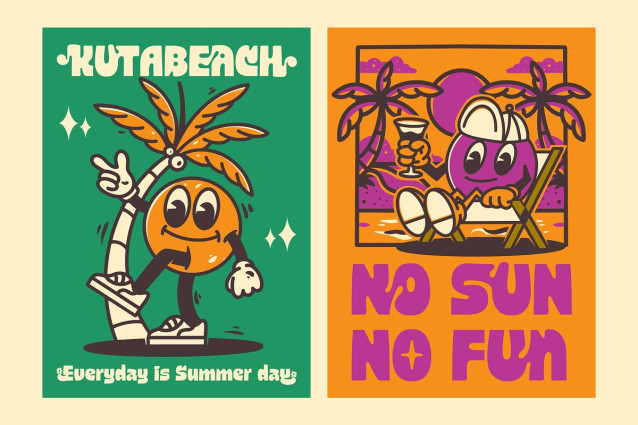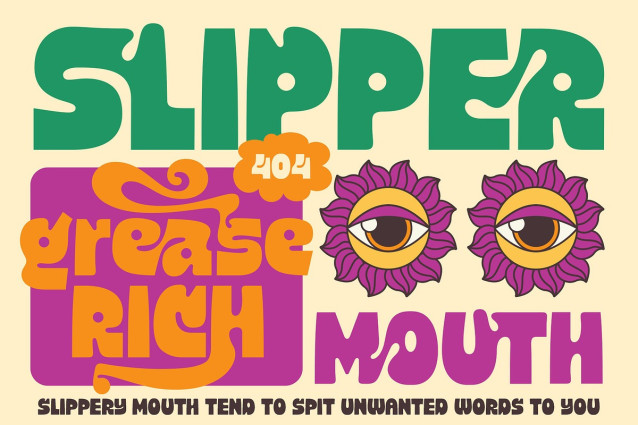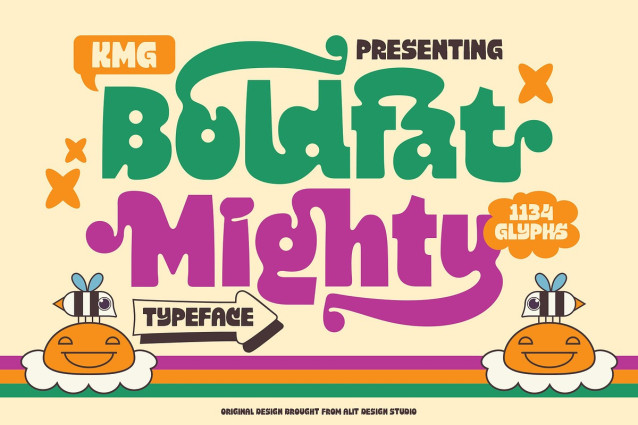
Boldfat Mighty Font
Boldfat Mighty Font – Step back into the colorful, psychedelic era of the 1970s with Boldfat Mighty, a bold, bubbly, and unapologetically retro display typeface crafted by Alit Design Studio. Bursting with cheerful energy and a distinctly quirky personality, this font is designed to make your projects pop with nostalgic fun and “peace stuffs” vibes.
Whether you are designing a far-out festival poster, vibrant streetwear apparel, or eye-catching packaging, Boldfat Mighty delivers that authentic vintage look with a playful, chunky weight that commands attention.
The “Mighty” Customization Power
What makes this typeface truly stand out is its massive library of 1134 glyphs. We’ve packed this font with an incredible variety of OpenType features, allowing you to custom-build your typography to perfectly fit your concept.